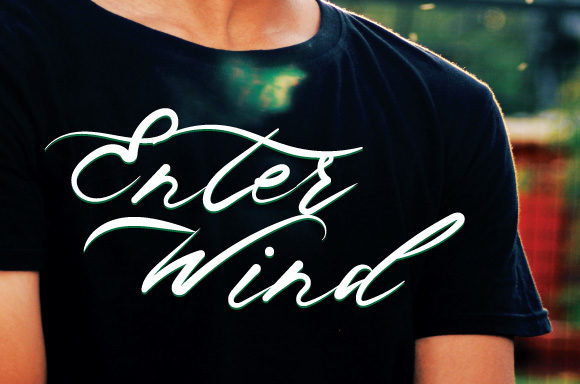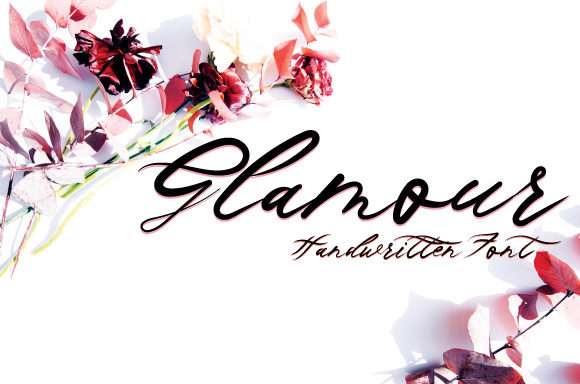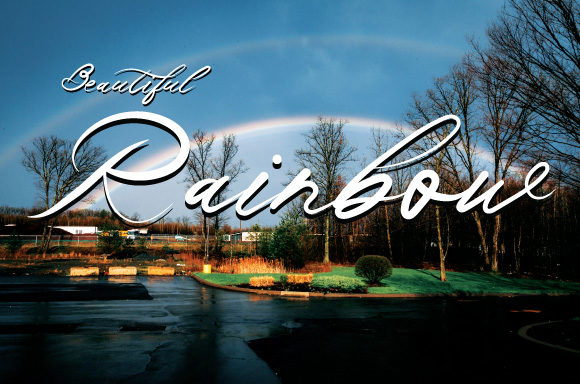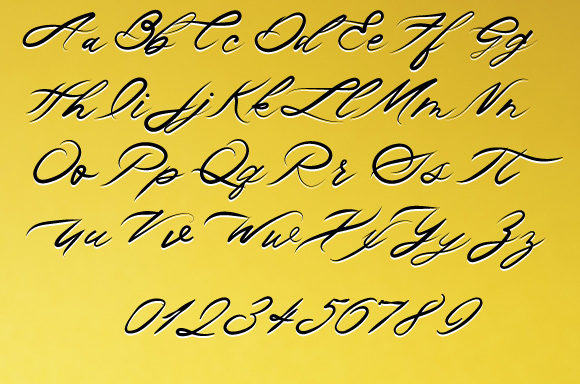
Introduction to Granitto Font
Granitto is a stylish and elegant handwritten font that is suitable for various designs.
This stunning font is a beautiful homage to classic calligraphy, which will elevate a wide range of design projects to the highest level .
Key Features of Granitto Font
Why Choose Granitto Font?
Granitto Font offers exceptional quality and versatility, making it a valuable addition to your design toolkit. Whether you’re creating for personal projects or commercial use, Granitto Font delivers professional results.